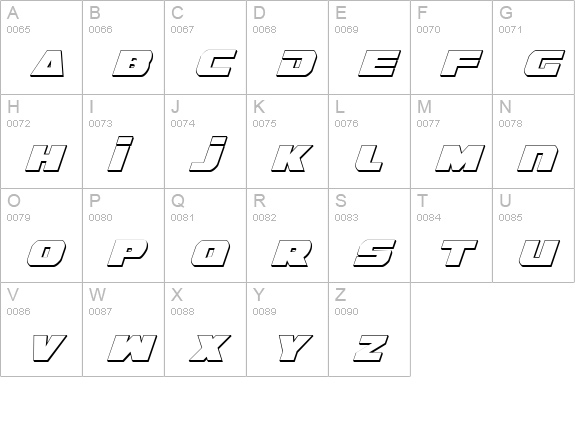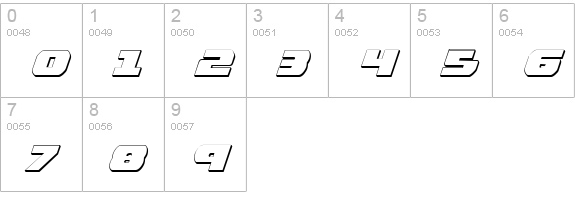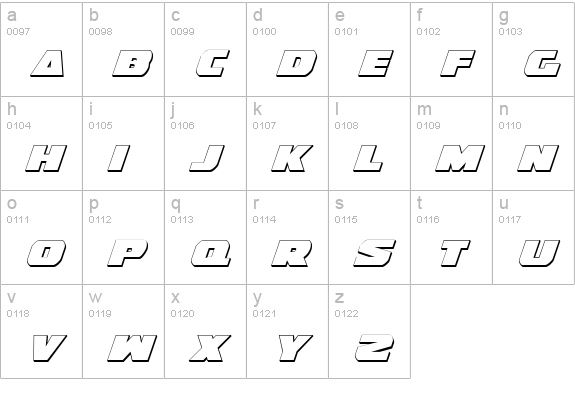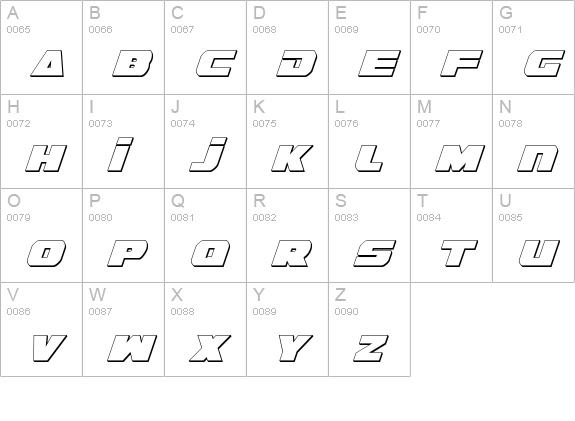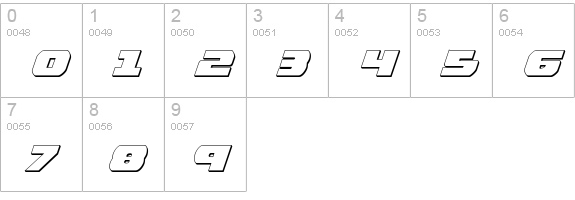
Guardian Shadow Italic is a distinctive, italic variant in the Guardian typeface family \xE2\x80\x94 well suited to design and typography projects.
Guardian Shadow Italic is a sleek and sophisticated font that exudes a sense of mystery and elegance. Its italicized design adds a touch of drama and flair to any text, making it perfect for creative projects and designs that seek to captivate the audience. The sharp angles and shadowed outlines give this font a bold and striking appearance, making it ideal for headlines, logos, and branding materials. What makes Guardian Shadow Italic even more appealing is that it is available for free download at FontsMarket.com. This means that you can easily access this stunning font and incorporate its unique style into your projects without any cost. Whether you're a designer looking to add a touch of sophistication to your work or a content creator seeking a font that stands out, Guardian Shadow Italic is a fantastic choice that won't break the bank. Download it today and elevate your designs with this eye-catching and stylish typeface.